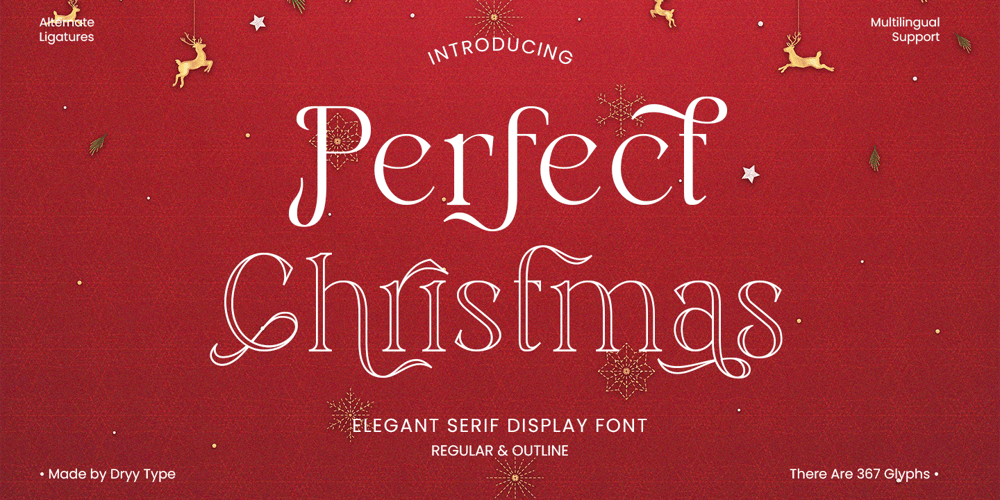
Perfect Christmas Font Family was designed by Rian Dryana and published by Dryy Type. Perfect Christmas contains 2 styles and family package options. Perfect Christmas FontA elegant serif display font that has a unique character and is elegant to use.Perfect christmas is an elegant display type font that is Christmas themed. This font I’ve created is incredibly versatile, and fits well with a variety of designs, elevating them to the highest level. Add this font to your favorite creative ideas and see how it turns out!Features : Uppercase, Lowercase, Numeral punctation, Alternates, Ligatures & Multilingual SupportThere it is! I really hope you enjoy it